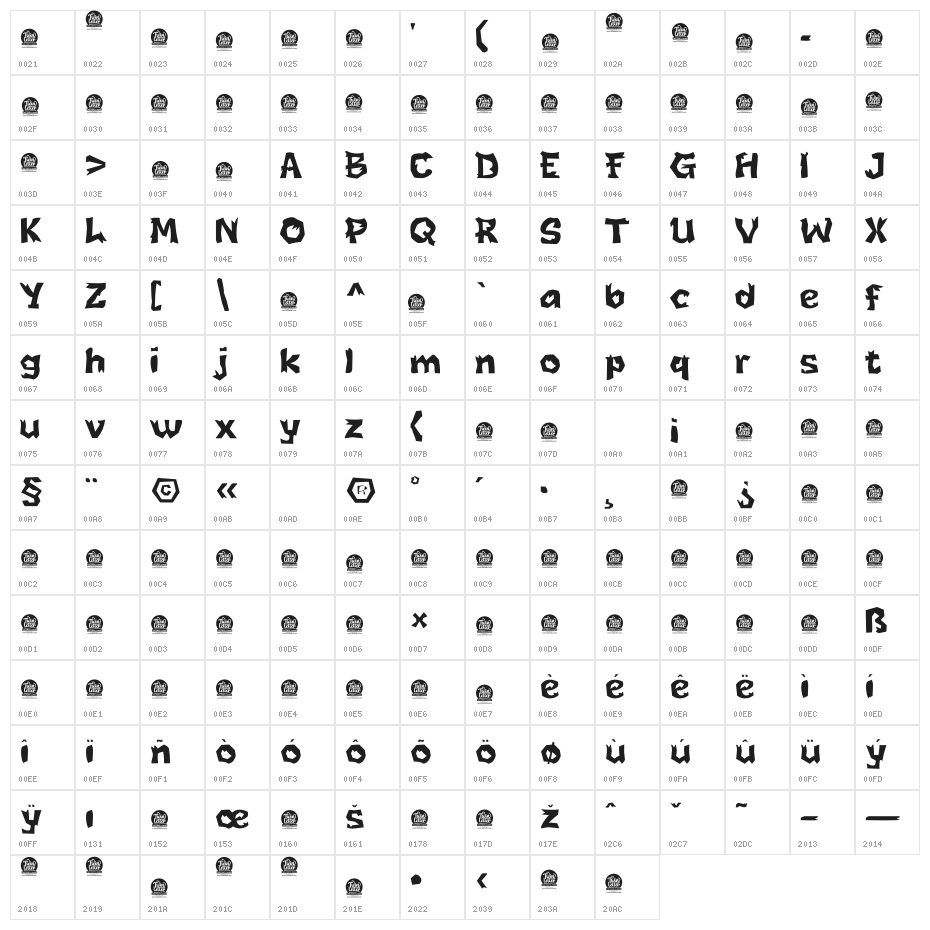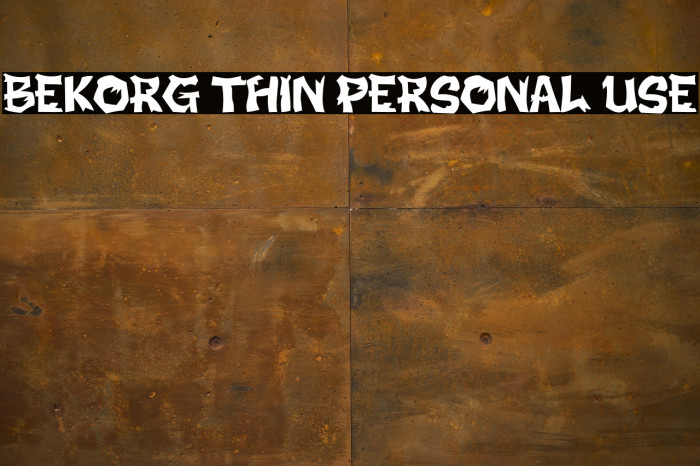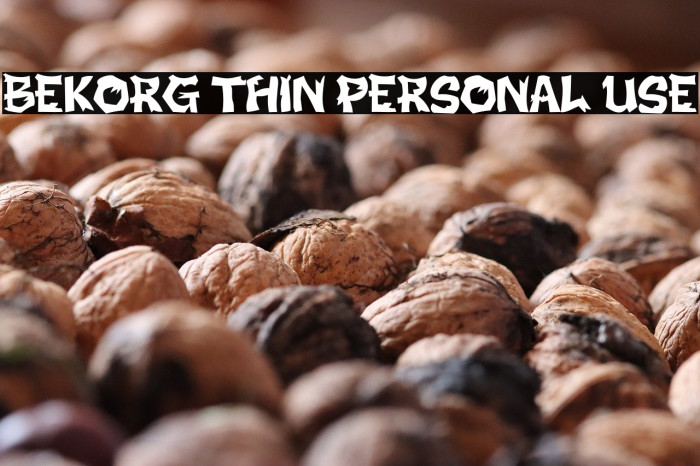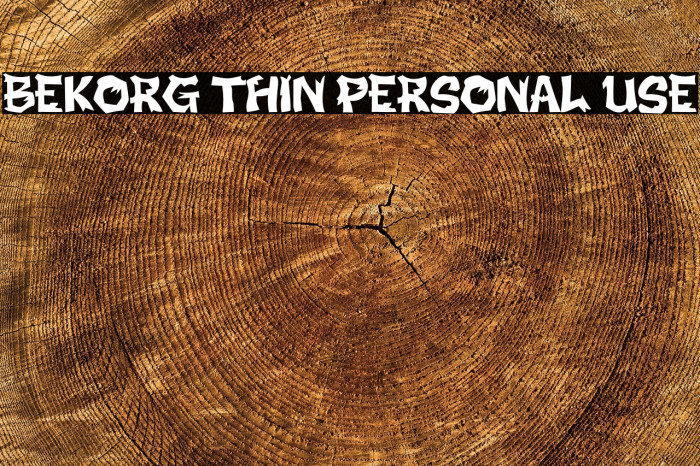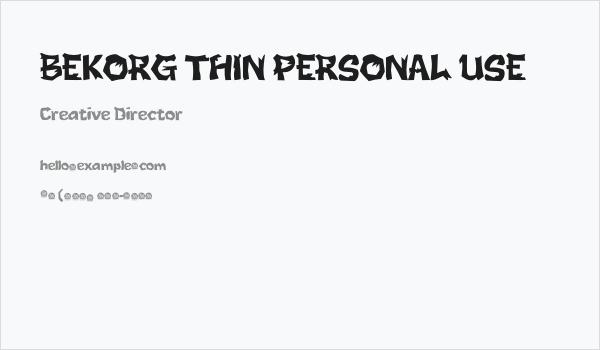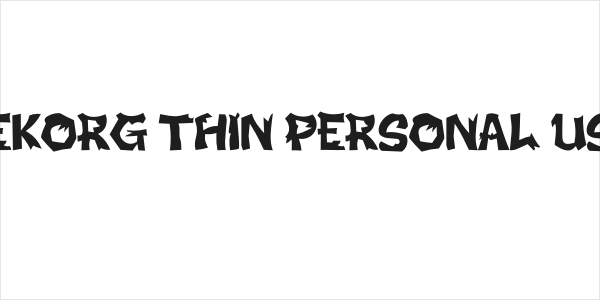
BEKORG THIN PERSONAL USE Font
BEKORG THIN PERSONAL USE Description
This font features a bold and dynamic style with sharp, angular edges and a slightly irregular form, giving it a hand-crafted appearance. The uppercase and lowercase letters maintain a consistent height, creating a cohesive look. The characters are designed with a sense of movement and energy, making them stand out in any design. The font's unique style is both modern and edgy, suitable for projects that require a strong visual impact. The special characters are crafted to match the overall aesthetic, ensuring a seamless integration with the alphabet.